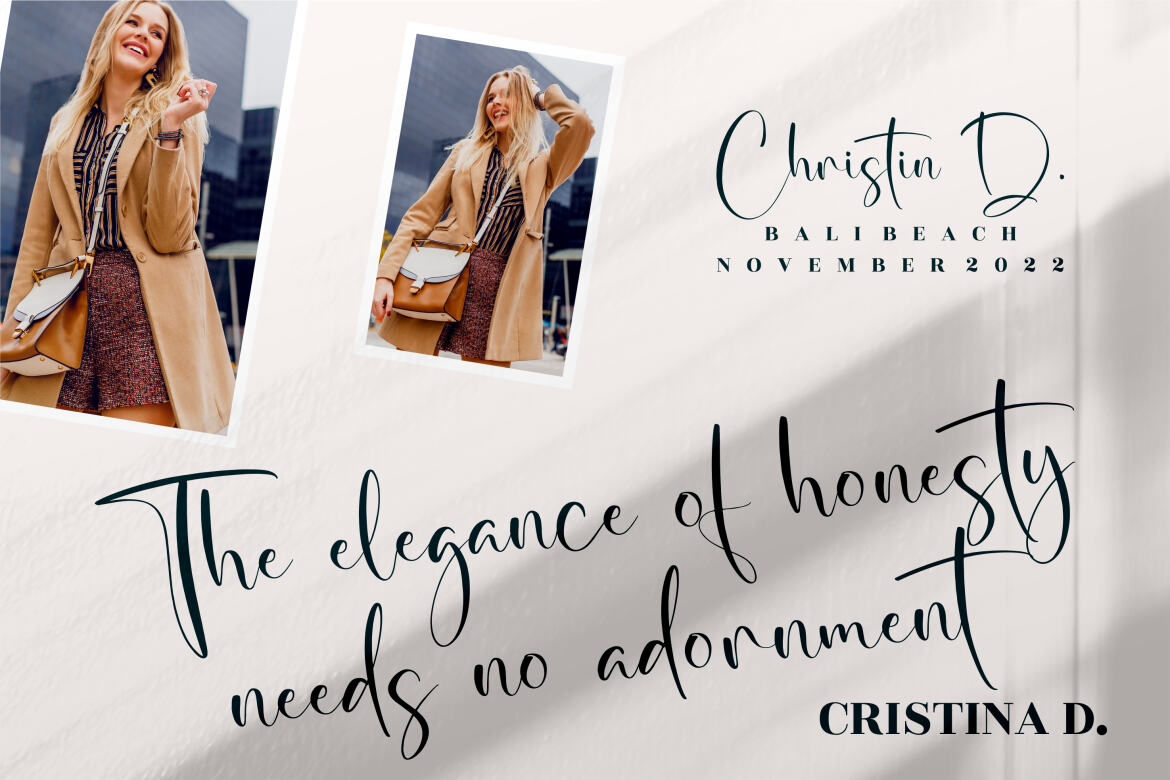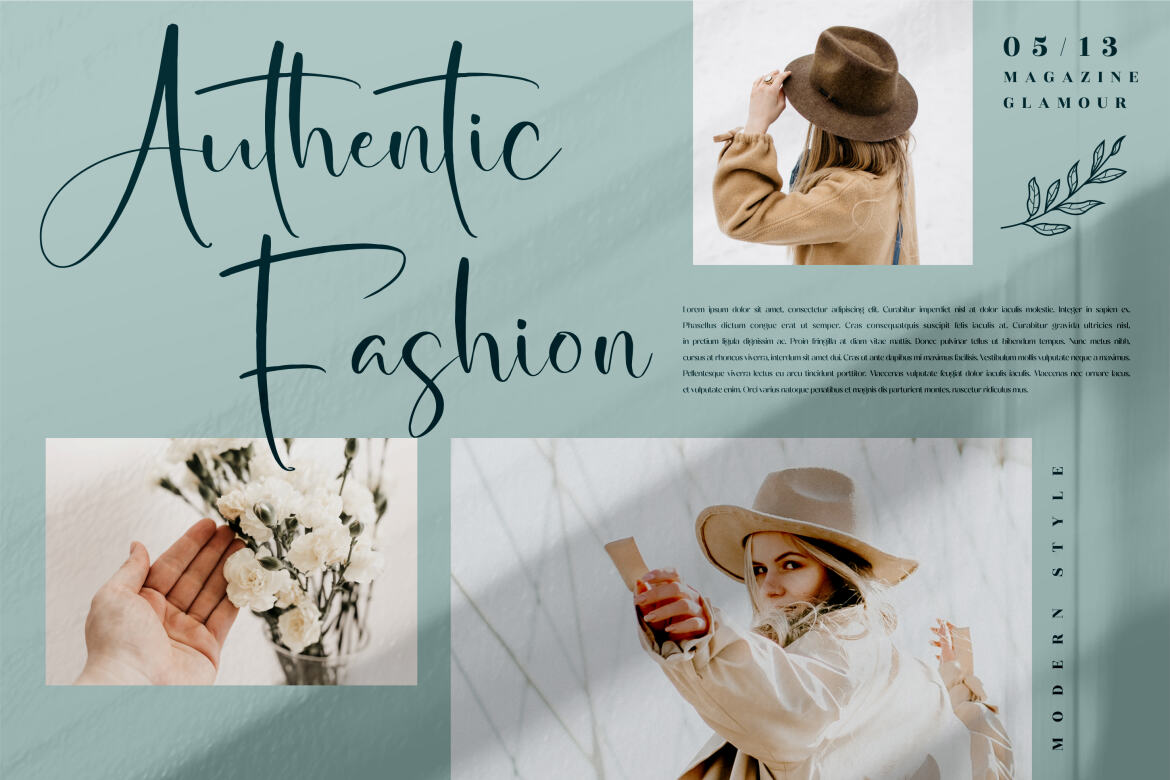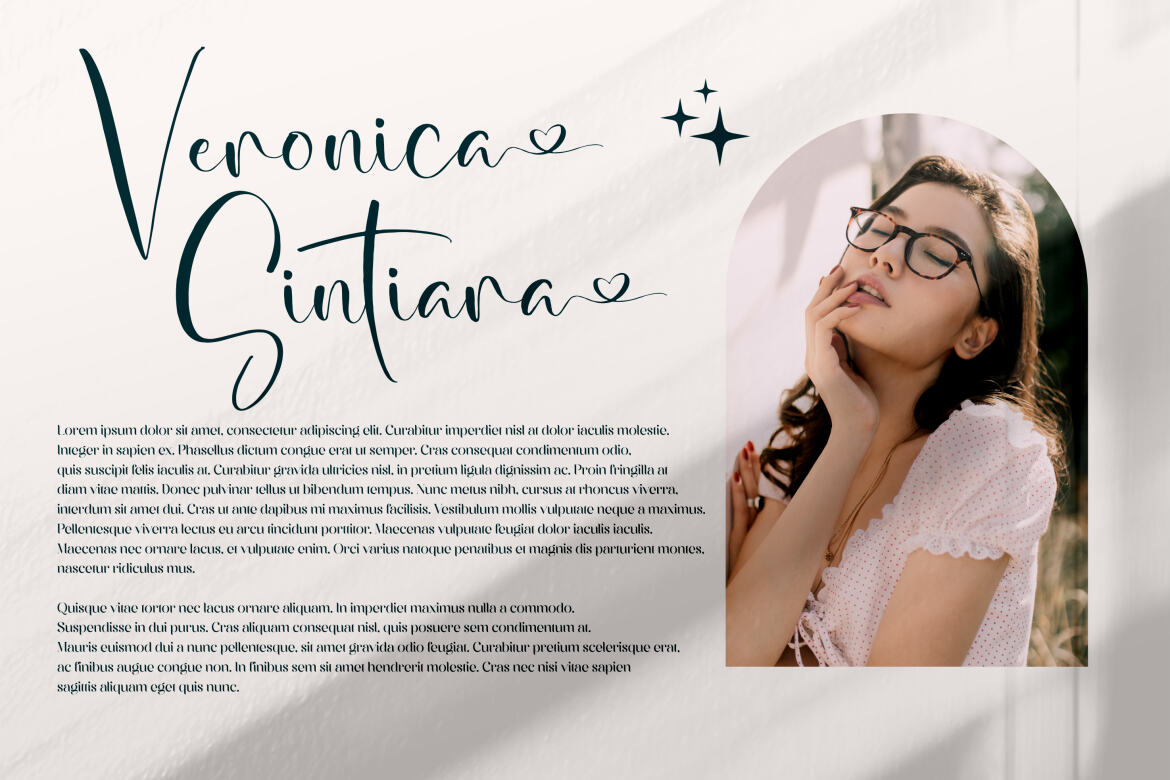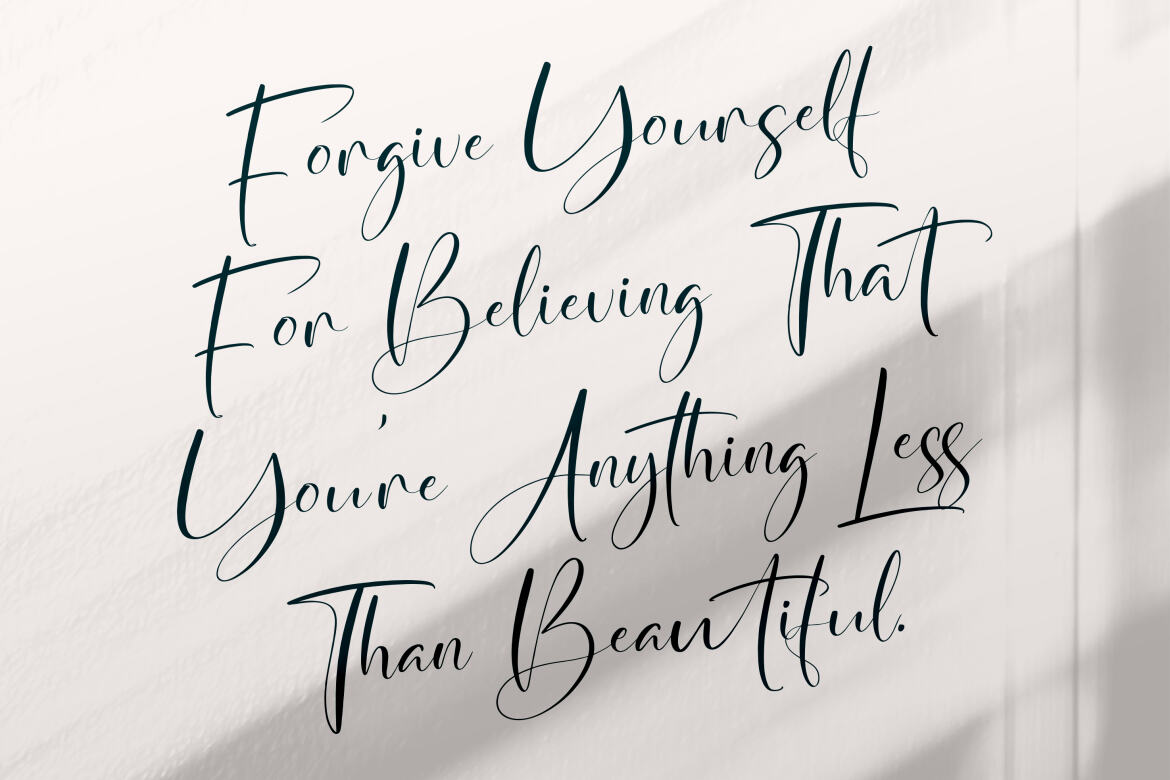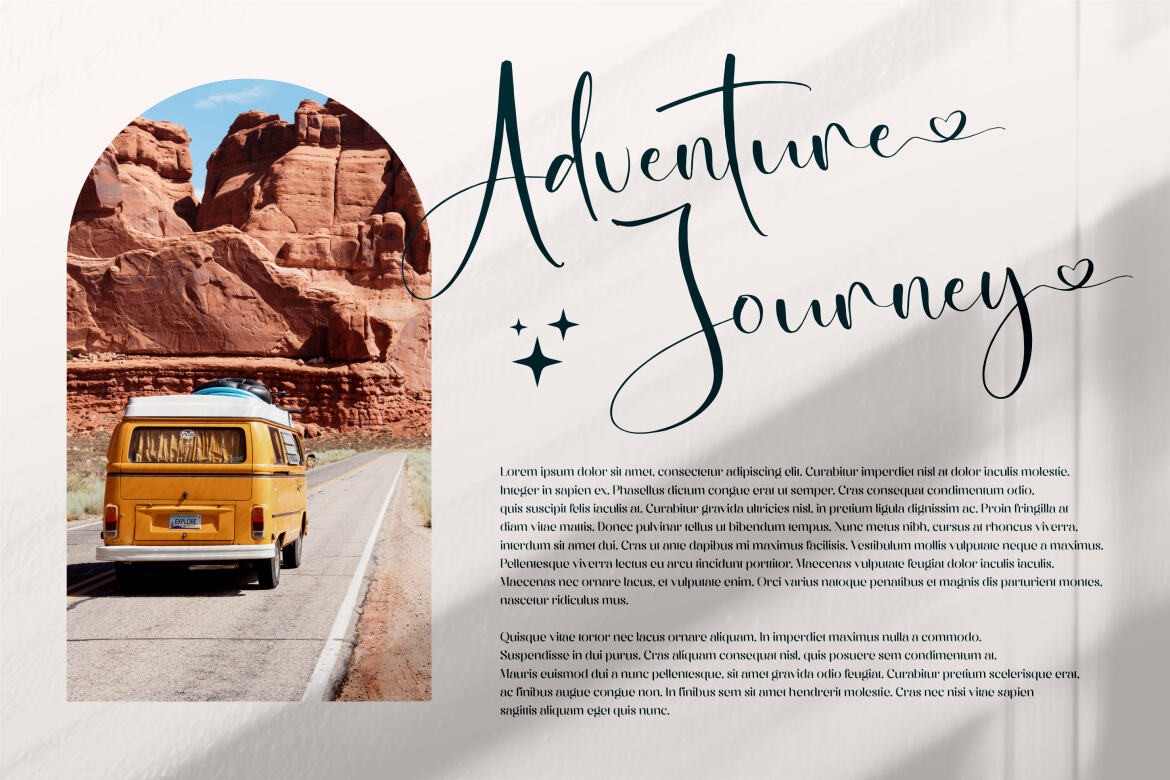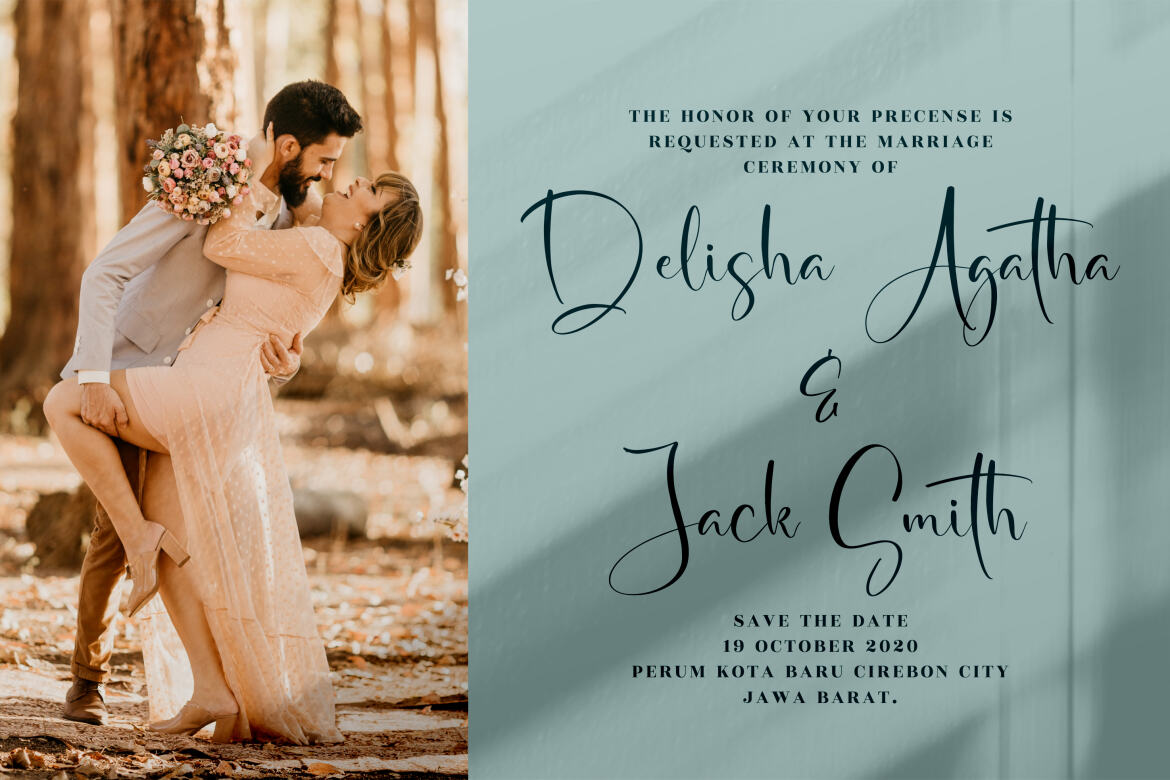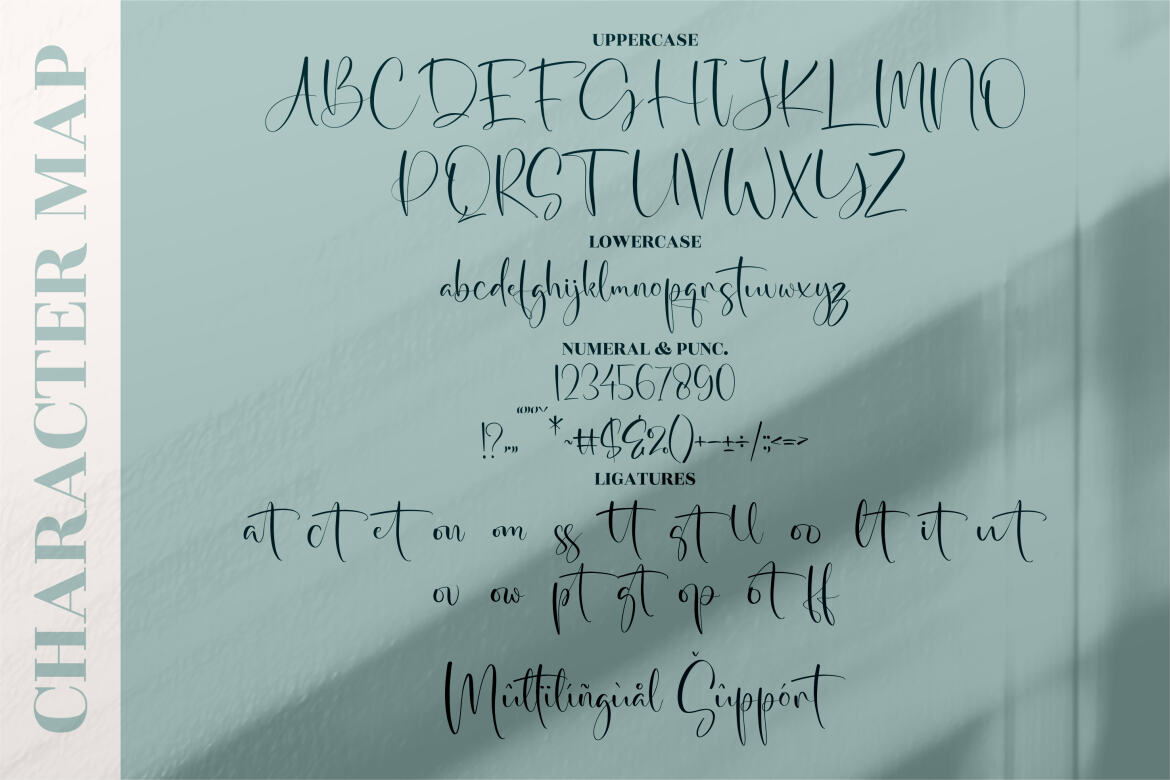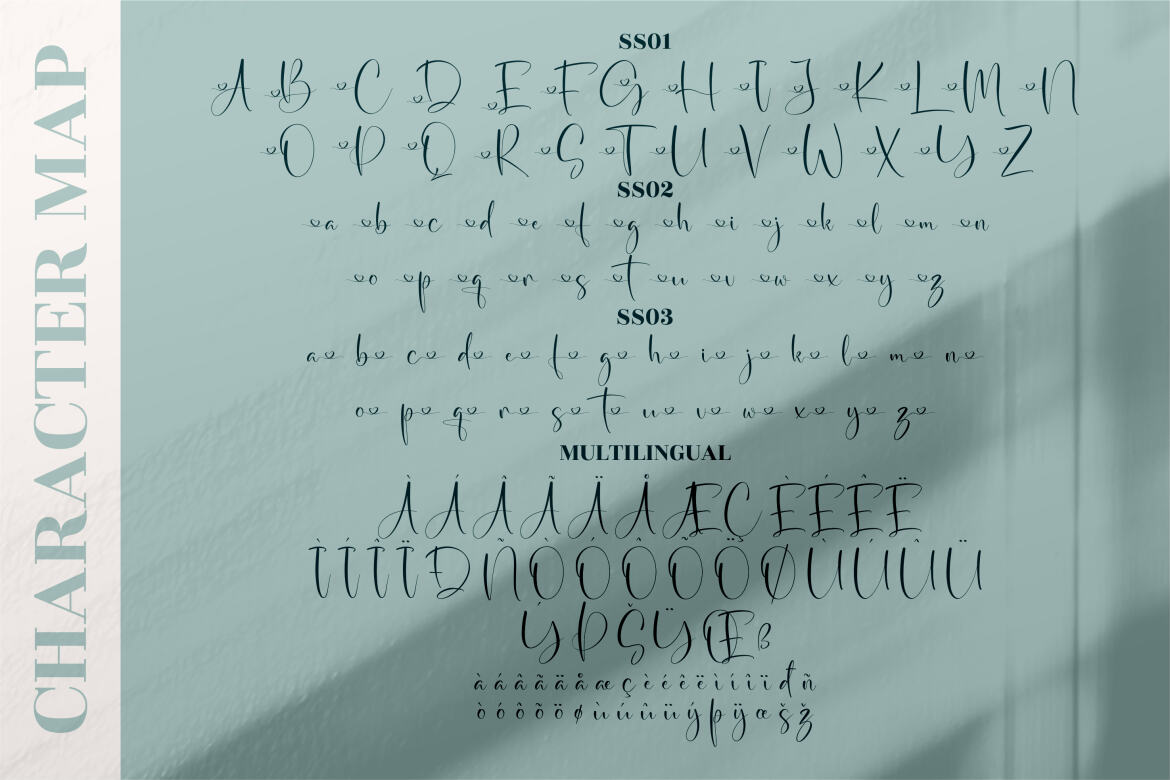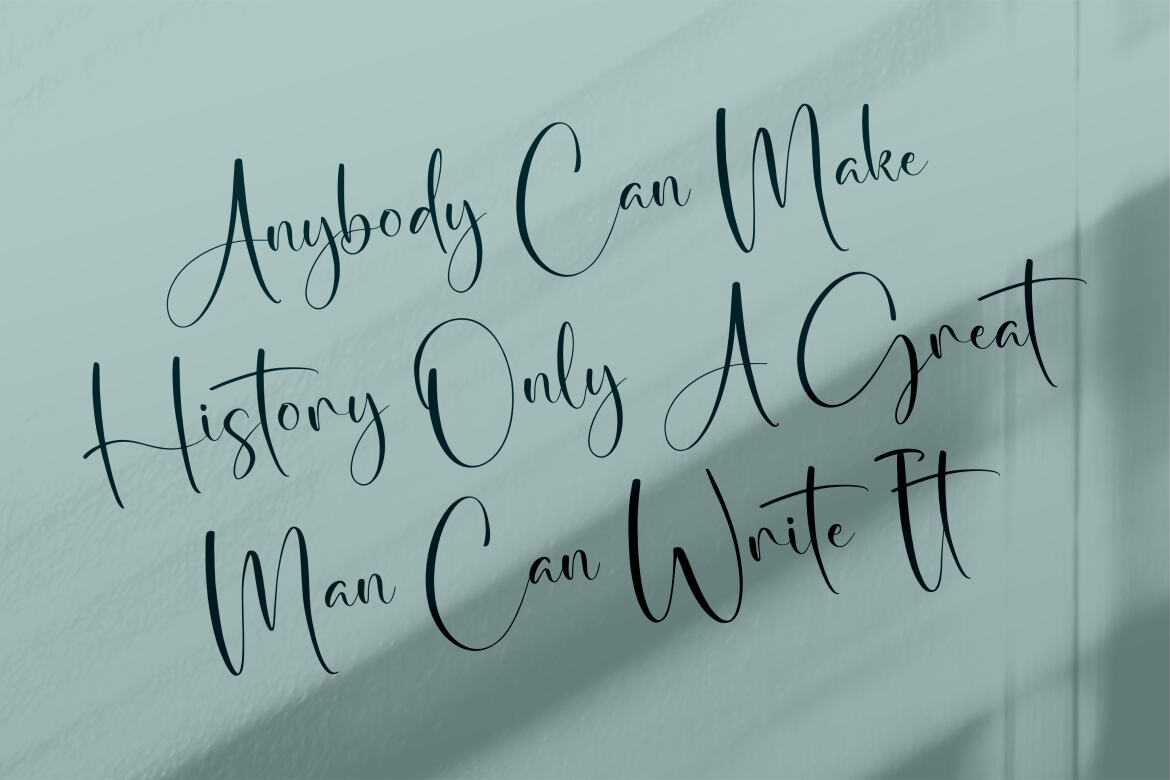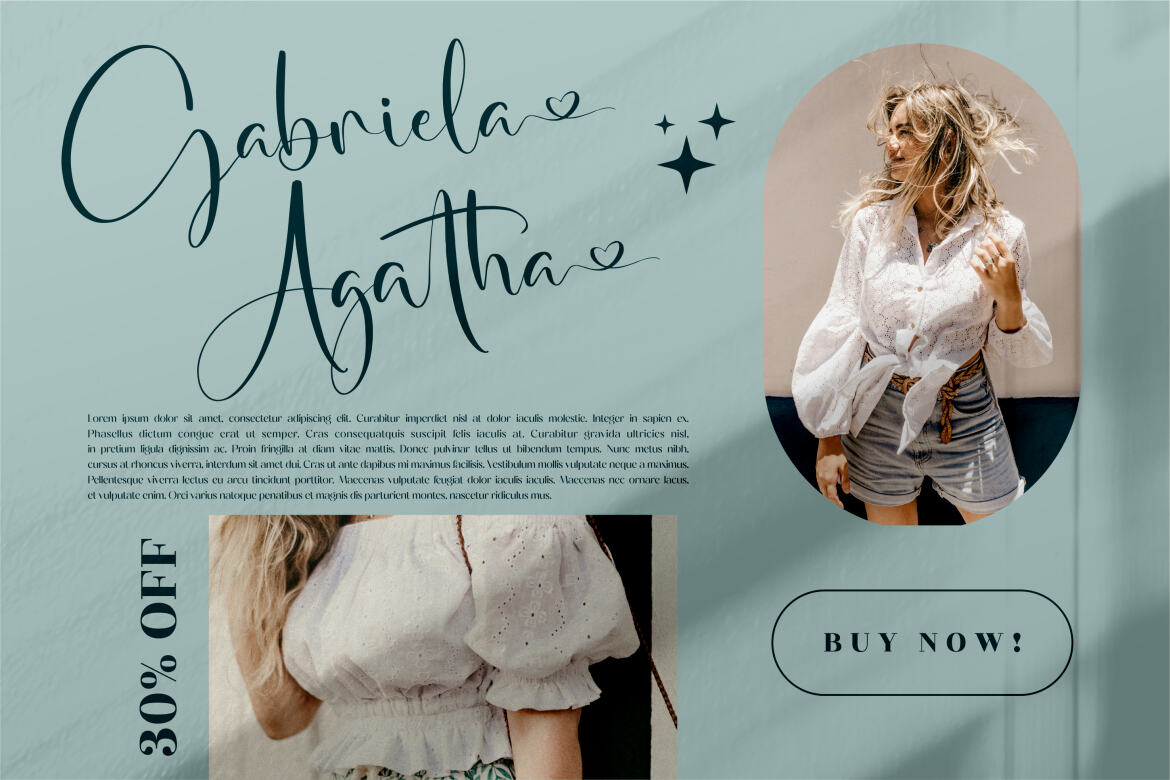
Winterland – FREE Script Font
Winterland – Beautiful Script Font, from Perspectype Studio, is a romantic calligraphy font, suitable for any projects such as: logos, branding projects, homeware designs, product packaging, mugs, quotes, posters, shopping bags, t-shirts, book covers, name card, invitation cards, greeting cards, label, photography, watermark, special events, and all your other lovely projects that need a beautiful script taste.